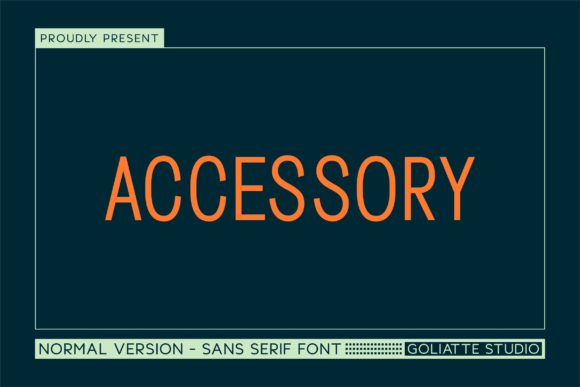
Introducing Accessory – A Modern Sans Serif Typeface
I’ll never forget the design project that led me to discover Accessory, a bold, all-caps sans serif font that has since become a staple in my toolkit. I was working on a branding project for a tech startup, and my client requested a font that exuded professionalism, strength, and authority. After hours of scouring font libraries and testing various typefaces, I stumbled upon Accessory. Its clean lines, minimalist aesthetic, and sharp, crisp edges immediately caught my attention. I knew I had found the perfect fit.
The Design Moment: When Fonts Make or Break a Project
We’ve all been there – stuck with a font that just doesn’t cut it. A font that looks great in theory but fails to deliver in practice. But what makes a font truly great? For me, it’s a combination of style, versatility, and impact. Accessory checks all these boxes and more. Its strong, geometric structure ensures that it looks great in various contexts, from digital interfaces to high-end branding.
What I Love About Accessory
• ✨ All-caps design for maximum impact and clarity
• ✅ Modern, minimalist style with a focus on readability
• 💯 Bold, clean lines for a confident and professional look
• 📈 Ideal for branding, logos, packaging, and digital design
• 📊 Perfect for both large-scale headlines and smaller text blocks
Honest Review: The Good, the Bad, and the Quirks
What I Love (Besides the Obvious)
One thing that impresses me about Accessory is its versatility. It’s not just a font; it’s a statement piece. It’s perfect for designers who want to make a bold statement without sacrificing readability.
⚠️ One thing to note is that Accessory is an all-caps font, which might limit its use for body text or longer paragraphs. 🤔 Additionally, some users might find the font a bit too bold for certain applications.
One of the best things about Accessory is its support for OpenType features and glyphs. These features allow you to customize your text and add unique touches to your design. Some common OpenType features include:
• Ligatures: Replace standard character combinations with stylized glyphs.
• Stylistic alternates: Switch between different font styles for added variety.
• Glyphs: Access special characters and symbols to enhance your design.
The Designer Inspiration Behind Accessory
The story behind Accessory’s design is one of creativity and experimentation. According to its creators, the font was inspired by modernist design principles and a desire to create a clean, versatile typeface. The result is a font that’s both timeless and modern.
Q: What is Accessory font?
A: Accessory is a bold, all-caps sans serif font designed for modern designers.
Q: What makes Accessory unique?
A: Its strong, geometric structure, clean lines, and minimalist aesthetic make it perfect for projects that require professionalism and impact.
Q: Can I use Accessory for body text?
A: While Accessory is ideal for headlines and titles, it may not be the best choice for body text due to its bold, all-caps design.
Q: Is Accessory suitable for digital design?
A: Yes, Accessory is perfect for digital interfaces, including websites, apps, and social media graphics.